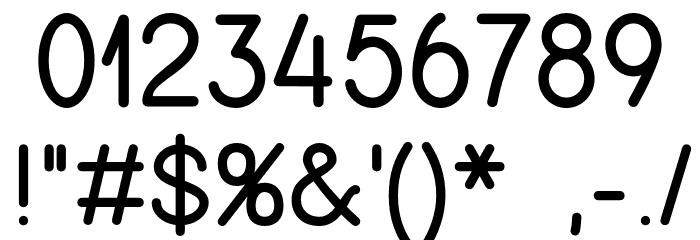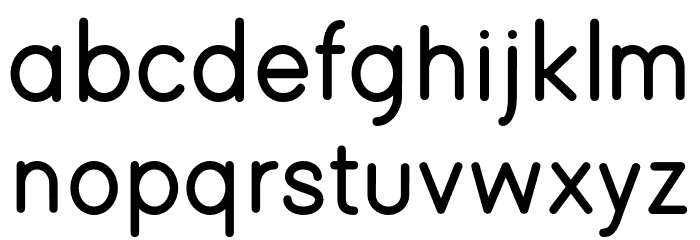
First Font
First Description
This font features a clean and modern sans-serif design with smooth, rounded edges, giving it a friendly and approachable appearance. The characters are evenly spaced, contributing to excellent readability. The uniform stroke width across all characters provides a harmonious and balanced look, making it versatile for various design applications. Its simplicity and clarity make it suitable for both digital and print media, ensuring legibility at different sizes. The numerals and special characters maintain the same rounded style, seamlessly integrating with the alphabetic characters.
A modern, rounded sans-serif font with excellent readability from Uncategorized fonts.
- Proposed Projects: Ideal for web design, user interfaces, branding, and advertising materials.